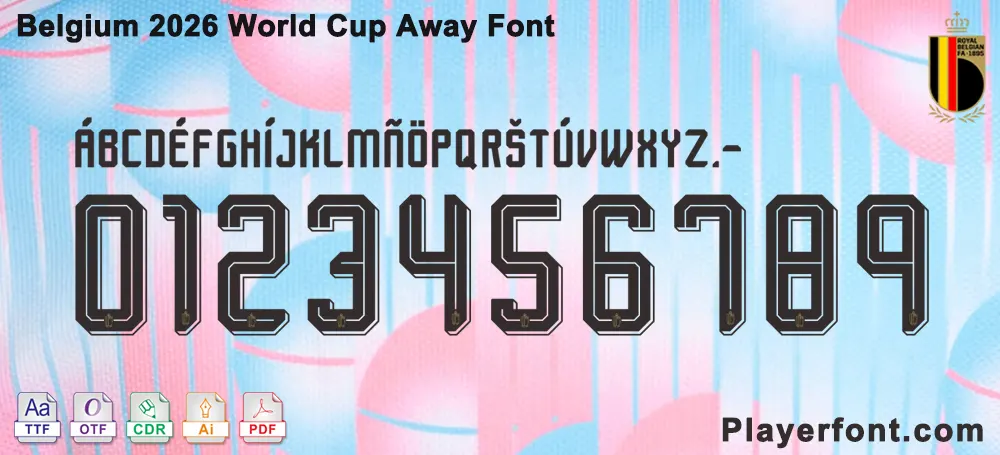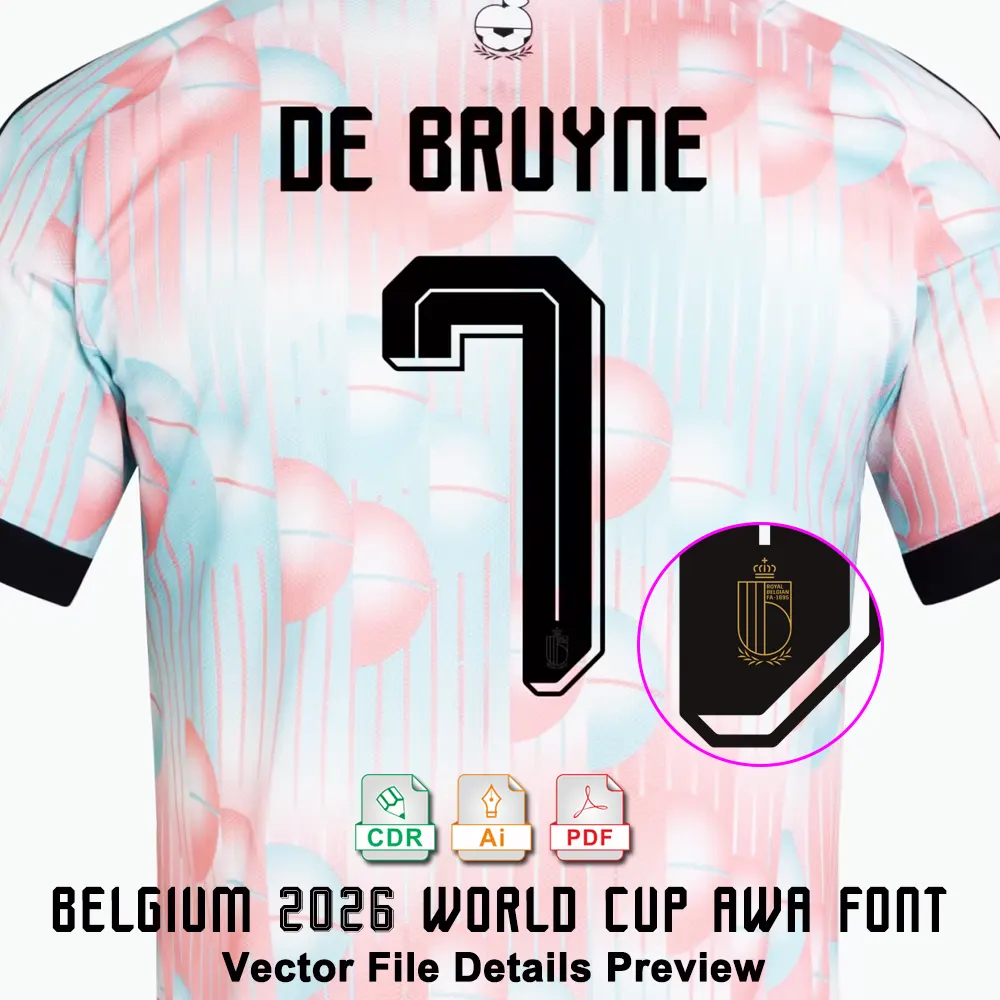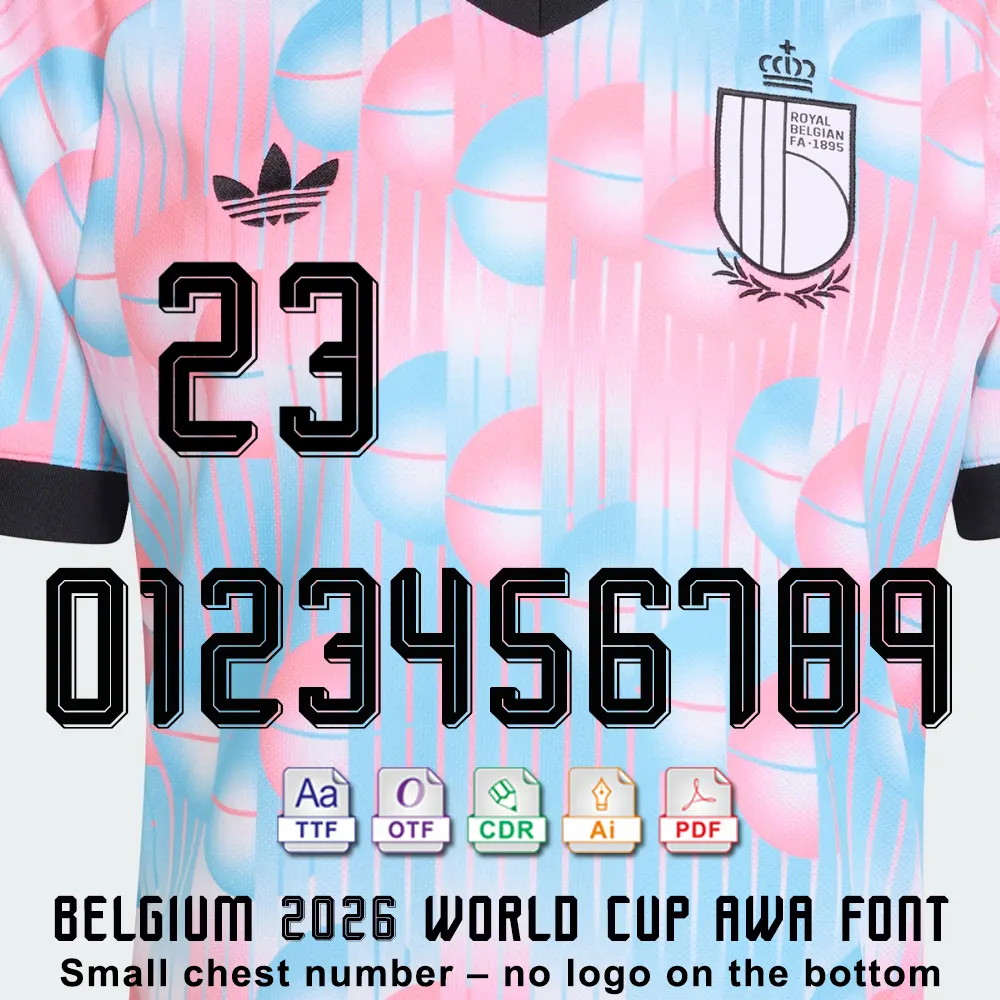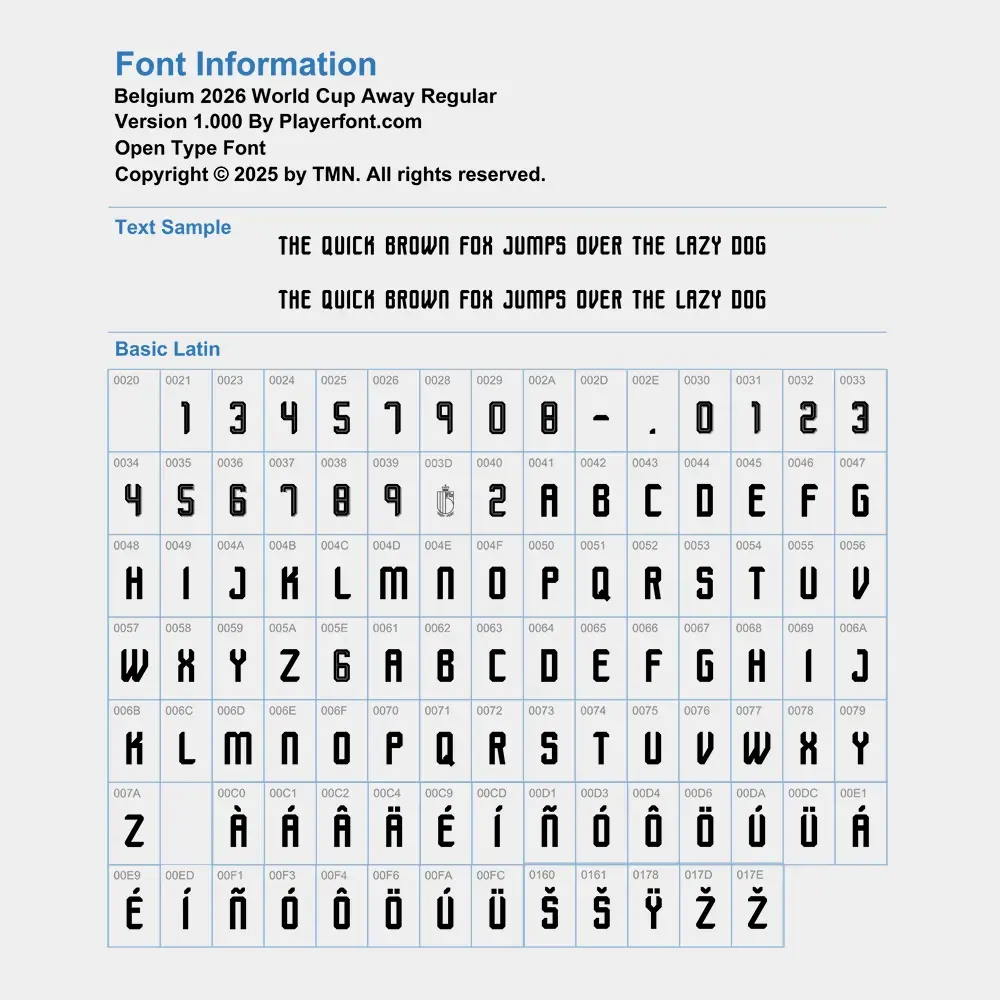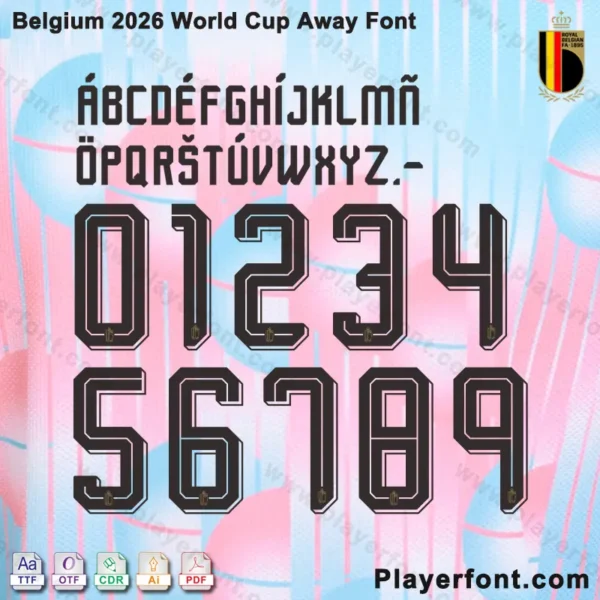
Elevate Your Designs with the Belgium 2026 World Cup Away Font
This premium Belgium 2026 World Cup Away Font Kit is a must-have for sports graphic designers, jersey collectors, and apparel shops. Designed to complement the iconic Adidas “Magritte” away jersey, this typeface captures the perfect blend of retro sportswear and modern surrealism.
Complete Typography: Includes the full set of uppercase letters (A-Z) and numbers (0-9) as seen on the official 2026 kits.
3D Retro Style: Features the distinctive hatching and linear depth that defines the Adidas 2026 World Cup Away collection.
Special Characters: Includes accented characters (Á, É, Ñ, etc.) for authentic player names like De Bruyne.
Whether you are creating custom fan gear, social media graphics, or restoring a match-worn jersey, our font kit ensures 100% accuracy. The design features a blocky, angular aesthetic that pairs perfectly with the legendary Trefoil logo.